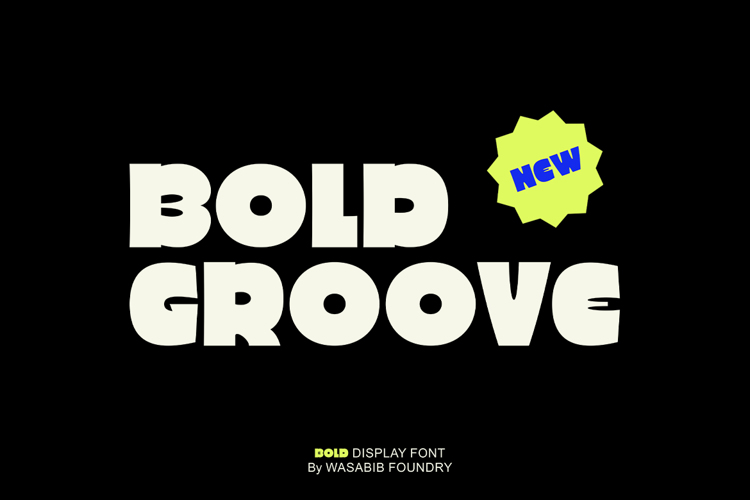
Bold Groove Font
Is a typeface that carries powerfull message in a
modern graphic style with ease.
it uniquely combines simplicity and sophistication.
BOLD GROOVE has everything you need to add creativity
and personality to your design while being easy to read.
Let Bold Groove impress your viewers and
help deliver your message with strong impact.